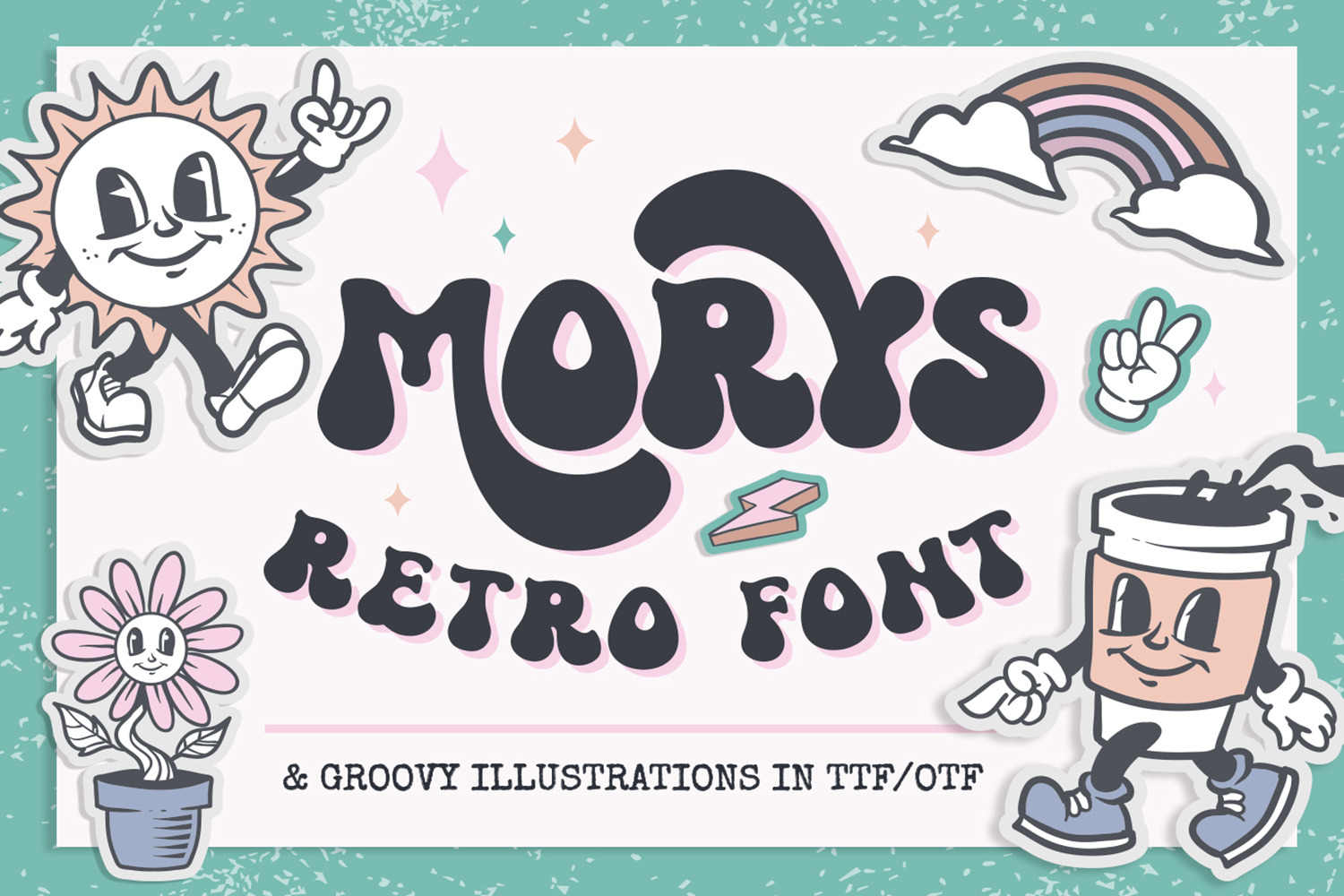
Morys Retro Font and dingbats
Morys Retro Font and dingbats,
Groovy font and illustrations
Morys Retro is a groovy/retro display font and it includes lots of complementary dingbats.
The best tool if you want to create t-shirt designs, mug designs, or just play around.